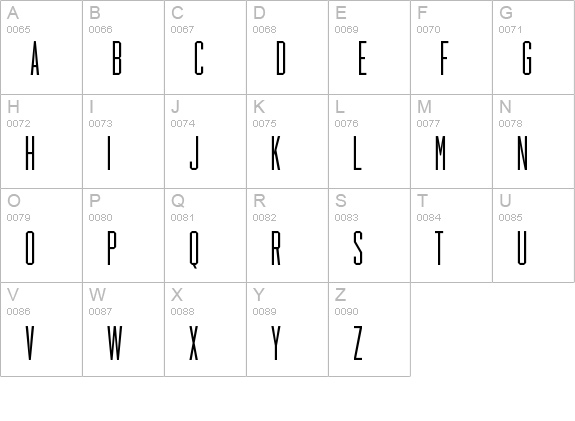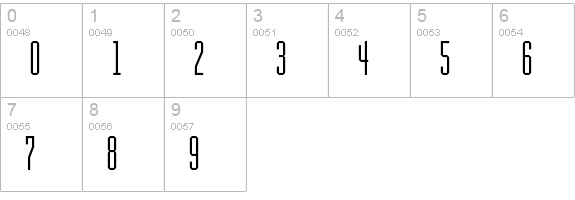
HeraldGothic-Medium is a balanced, medium-weight variant in the HeraldGothic typeface family \xE2\x80\x94 well suited to sub-headlines, navigation, and balanced editorial work.
HeraldGothic-Medium is a versatile and classic font that exudes sophistication and elegance. With its clean lines and bold presence, this font is perfect for a wide range of design projects, from branding to editorial design. Its medium weight strikes the perfect balance between readability and style, making it a go-to choice for headlines, logos, and more. What sets HeraldGothic-Medium apart is that it is available for free download at FontsMarket.com. This means that you can easily access this high-quality font without any cost, making it a valuable addition to your design toolkit. Don't miss out on the opportunity to elevate your projects with the timeless appeal of HeraldGothic-Medium. Download it today and experience the power of this exceptional font for yourself.